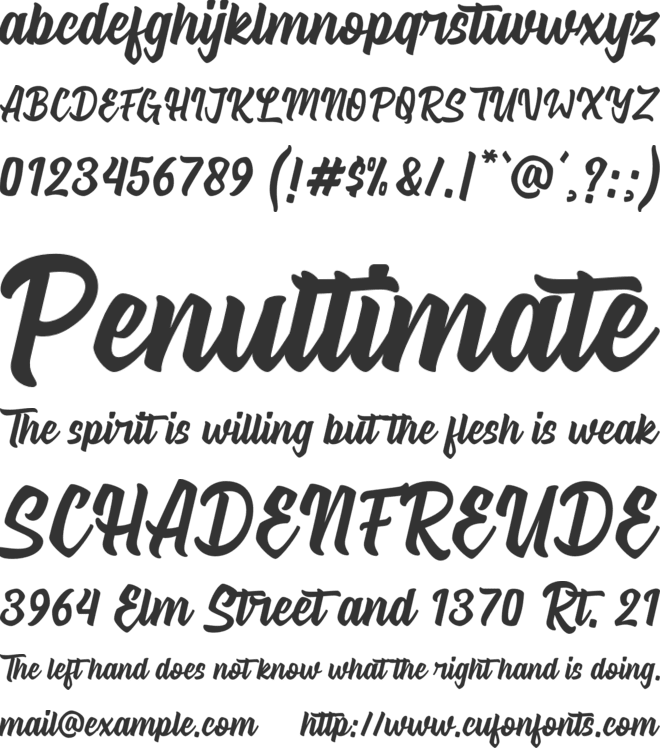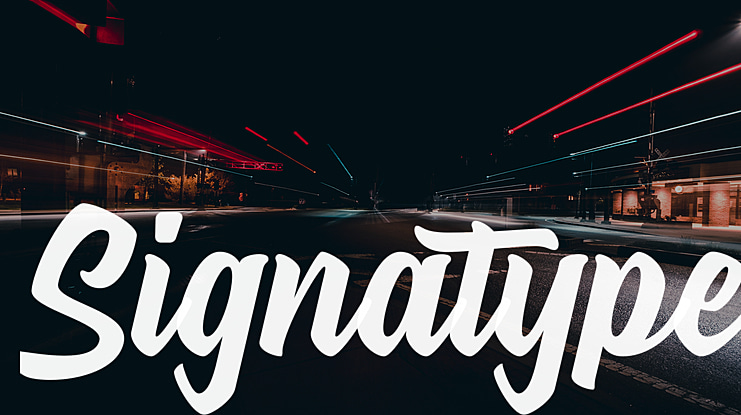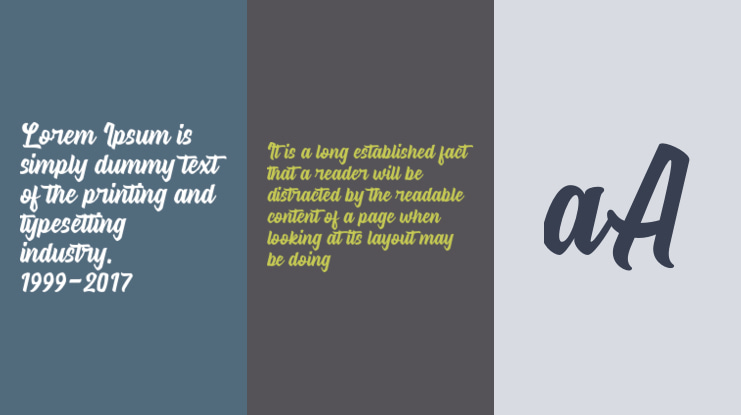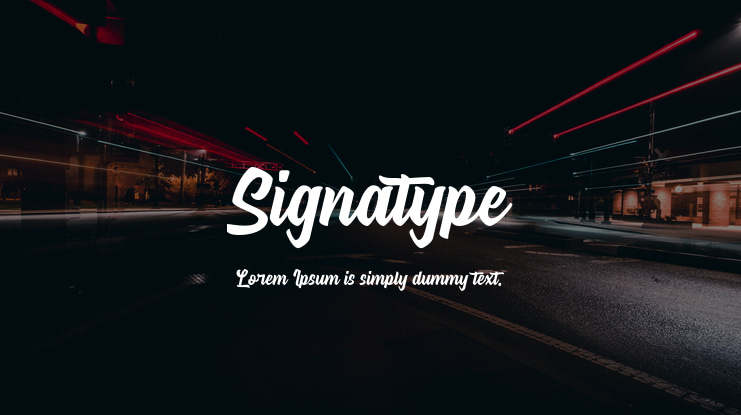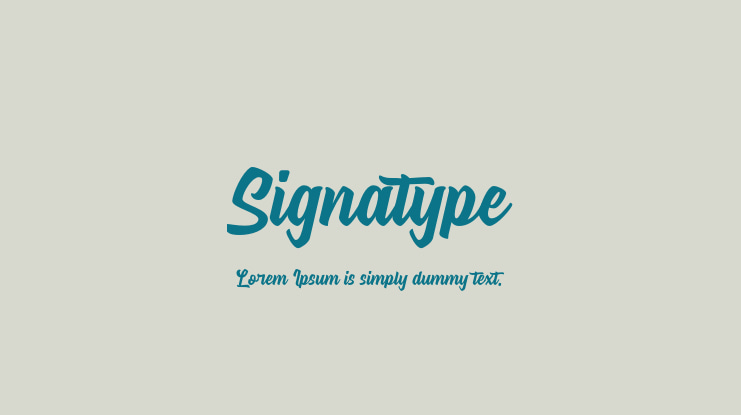
Signatype Font
Signatype is a delicate, elegant and flowing handwritten font. It has beautiful and well balanced characters and as a result, it matches a wide pool of designs. Add it to your most creative ideas and notice how it makes them come alive!